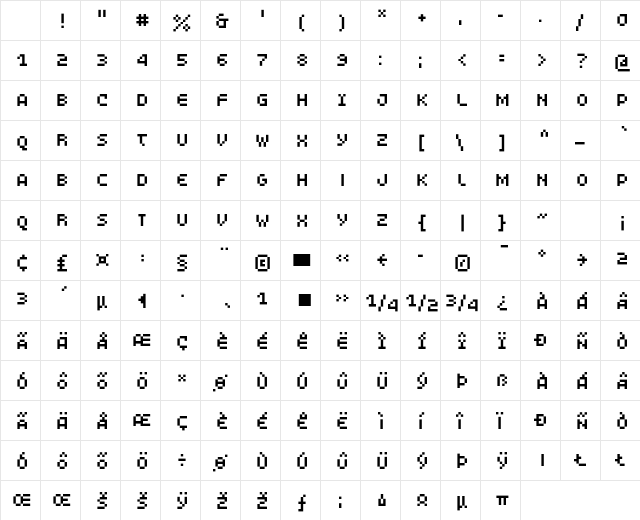
Complete LomoWebPixel LT Std 4 Regular glyph index. Displaying only characters natively supported by LomoWebPixel LT Std 4 Regular font.
LomoWebPixel LT Std 4 is rooted in pixel-grid construction, making it a natural fit for game UI, retro computing aesthetics, and digital nostalgia projects.
Pro Tip: Use LomoWebPixel LT Std 4 at sizes that align with its pixel grid for the sharpest rendering - scaling to non-integer multiples can introduce unwanted blur.